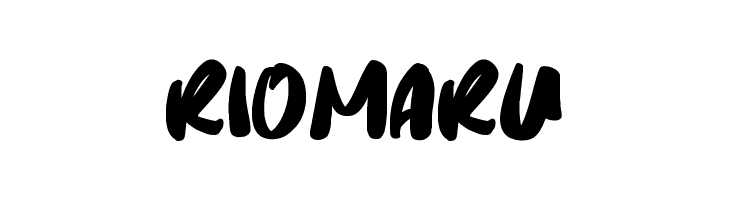
A bold, playful handwritten font with rounded strokes and a dynamic slant.
A playful, bold handwritten font with a lively and informal style.
A bold, playful script font with a handwritten feel.
A playful, bold handwritten font with thick strokes and whimsical curves.